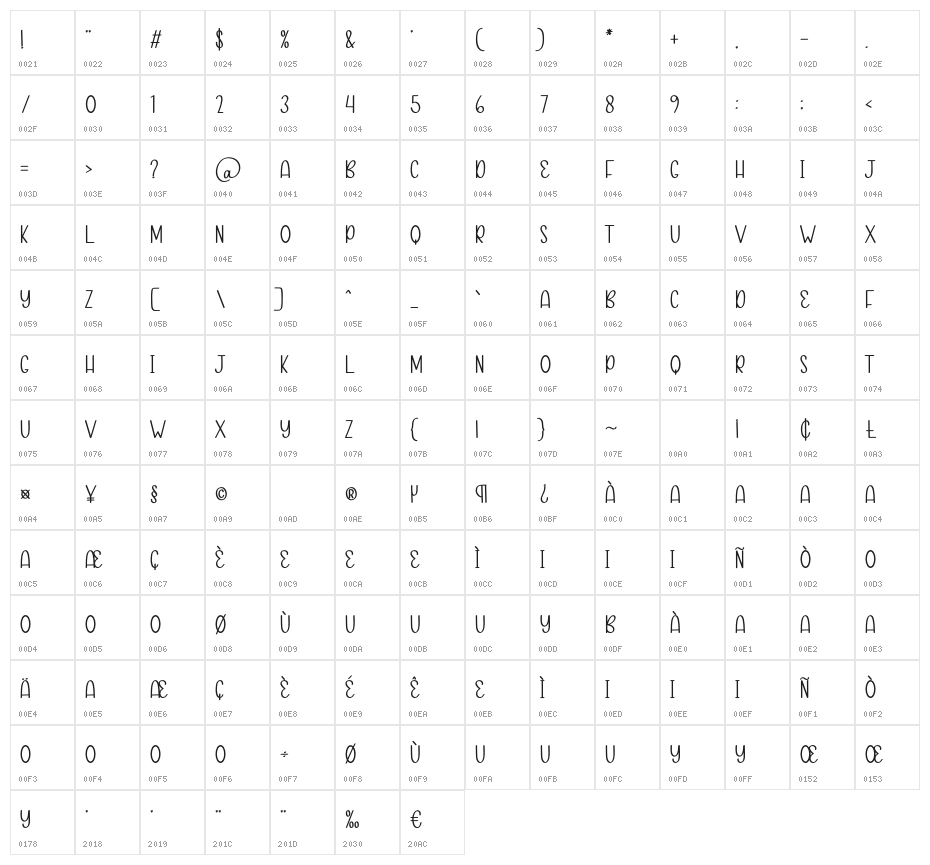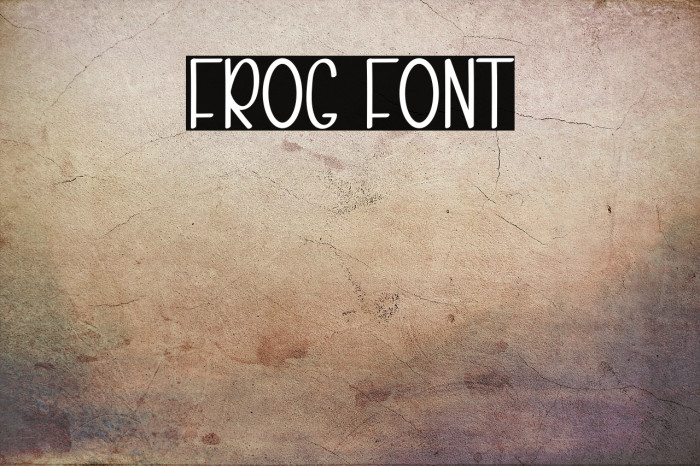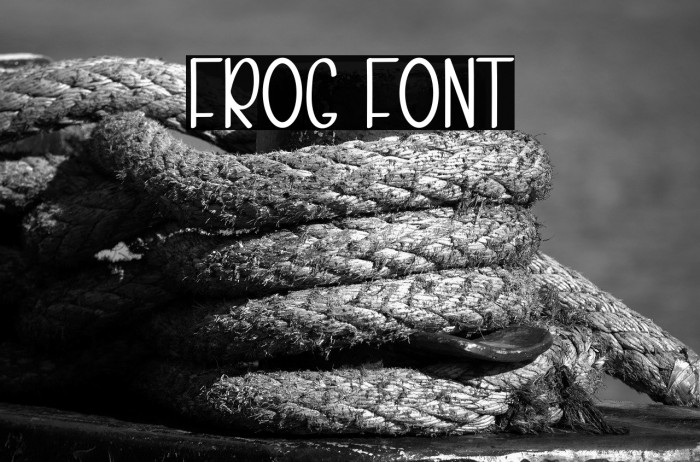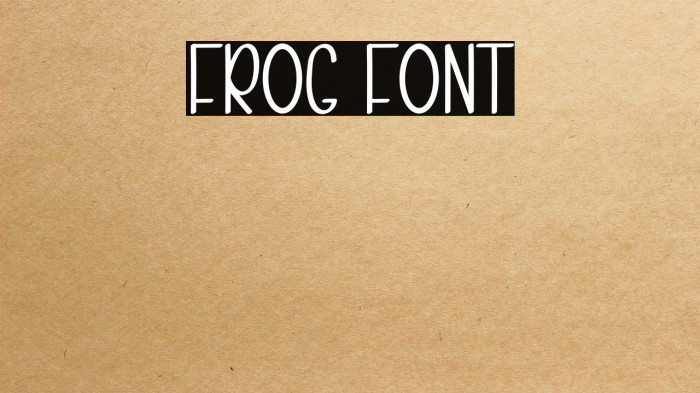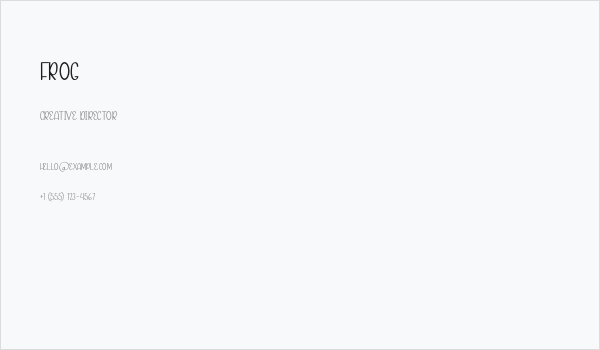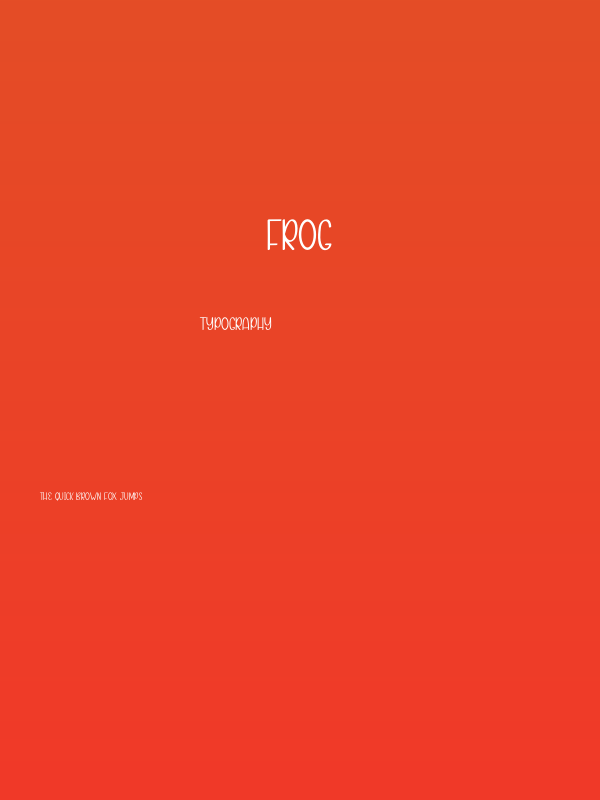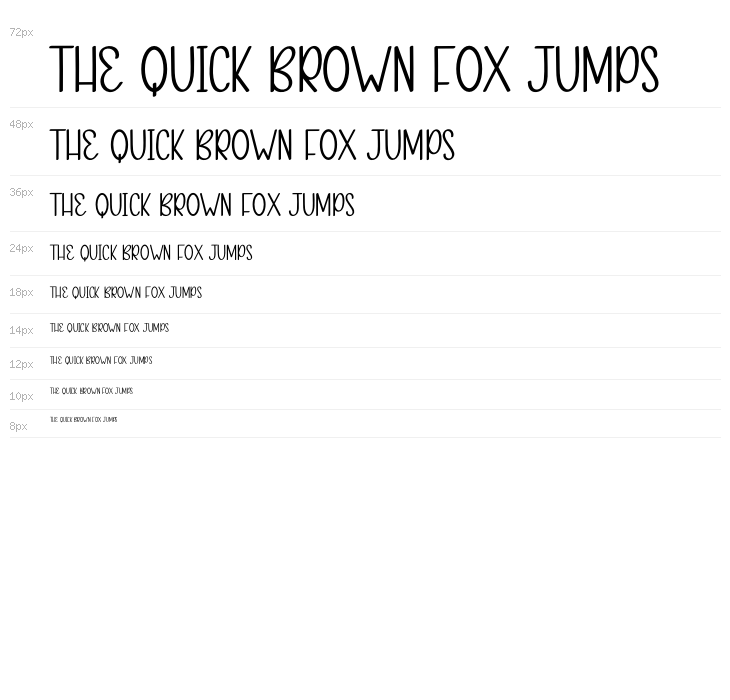
Frog Font
Frog Description
This font features a playful and whimsical design, characterized by its rounded and slightly elongated letterforms. The strokes are consistent in thickness, giving it a uniform appearance. The uppercase and lowercase letters maintain a cohesive style, with a slight slant that adds a touch of dynamism. The numerals are clear and easy to read, matching the overall aesthetic of the alphabet. Special characters are thoughtfully designed, maintaining the playful essence of the font. This typeface is ideal for projects that require a friendly and approachable look, such as children's books, playful branding, or casual invitations.
| Overall Style | Playful |
| Proposed Projects | Children's books, playful branding, casual invitations, greeting cards. |